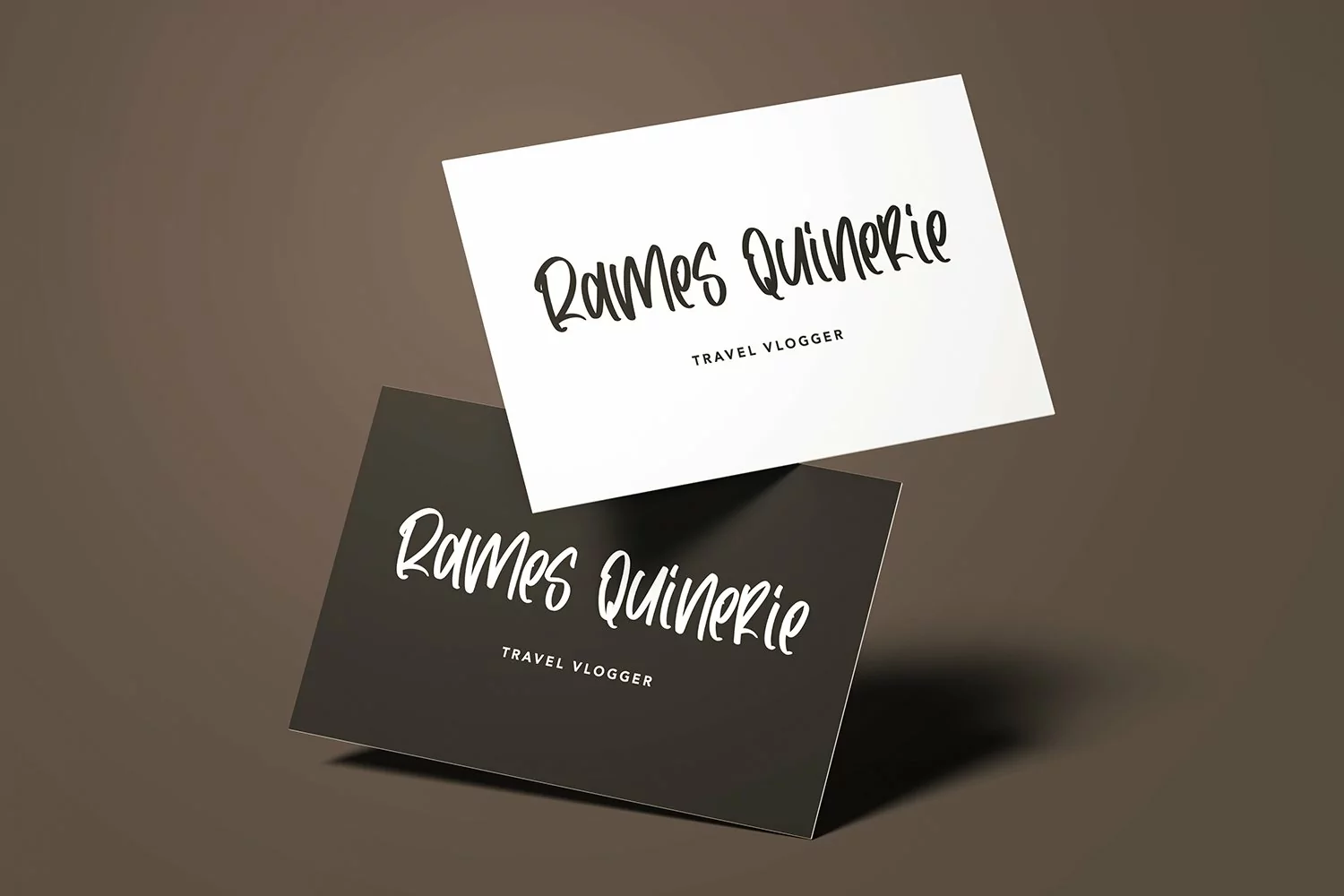
GuitarAndChill - Cool Handletter Font that contain lowercase, uppercase, symbol, and also support multi language. There’s a lot ligatures in this font. This Font also comes with ligatures, alternates and many more. this font suitable for fashion, branding, catalog and other design what you want.
Guitar And Chill